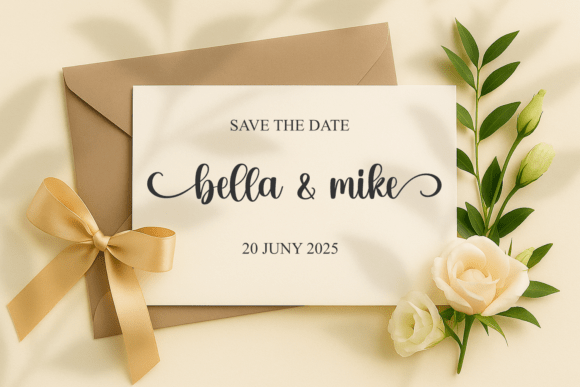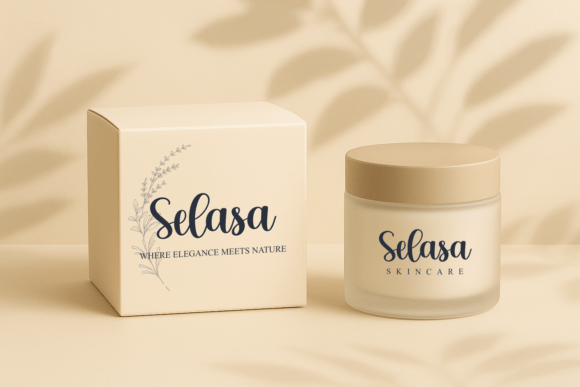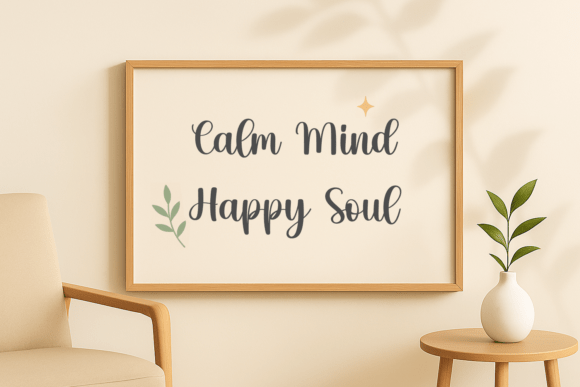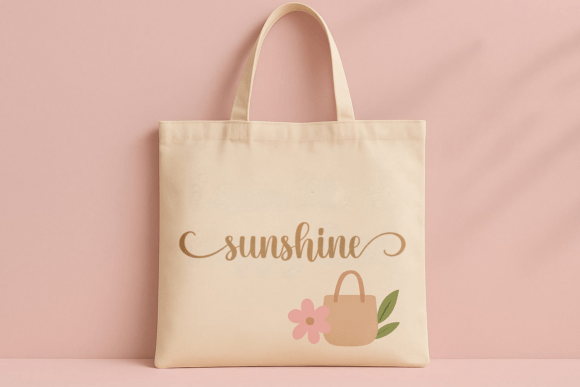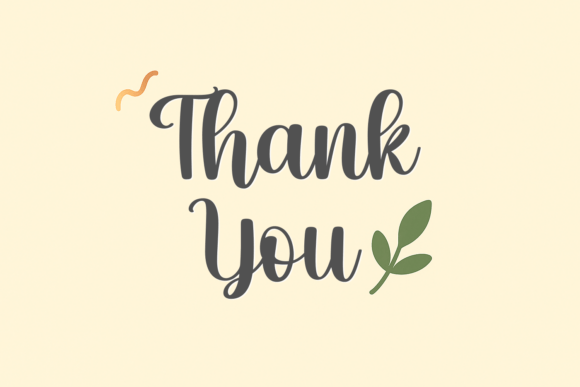
The Birth of a Masterpiece: Unveiling the Belliona Font
Have you ever been struck by the inspiration of a beautiful handwritten note or a stunning piece of calligraphy? The gentle dance of ink on paper, the fluidity of the strokes, and the emotional connection it evokes are all things that make design truly special. For designers, finding the perfect font to capture this essence can be a game-changer.
Enter the Belliona Font, a stylish script font that embodies artistic flair and contemporary elegance. With its fluid brush strokes, dynamic curves, and expressive letterforms, it’s the perfect tool to add a creative and sophisticated touch to your designs. Whether you’re crafting logos, invitations, packaging, or social media graphics, the Belliona Font delivers both visual impact and versatility.
Belliona Font Key Features
- Unique Characteristics: Belliona Font features a unique blend of modern and elegant designs, making it suitable for various applications, including headings, titles, and body text.
Belliona Font Review
I recently had the chance to work with the Belliona font, and I must say it’s an interesting choice. Let’s dive into what I think works well and what might not be so great. ✨
- Unique Character: Belliona font has a distinct character that can help set your design apart from more common fonts.
- Highly Legible: It’s easy to read, even at smaller font sizes, making it suitable for body text or headings.
- Good for Emotional Design: The font’s flair and curves can add an emotional touch to your design, perfect for branding or advertising.
However, there are a few limitations to consider. ⚠️
- Not Suitable for Formal Documents: The font’s style might not be suitable for formal documents, like reports or academic papers.
- Can be Overpowering: Belliona font can be quite bold, so use it sparingly to avoid overwhelming your design.
- Not Ideal for Small Text: While highly legible, the font’s flair can make small text appear cluttered or difficult to read.
Overall, I think Belliona font is a great choice for creative projects or brands looking to make a statement. Just be mindful of its limitations, and you’ll be able to use it effectively in your designs.
Belliona Font is ideal for use in creative projects, such as:
- Designing invitations and event materials.
- Creating branding materials, such as logos and business cards.
- Designing digital products, such as ebooks and guides.
For optimal results, use Belliona Font in conjunction with high-quality images and graphics to create visually appealing designs.
Alternatives to Belliona Font
The Belliona Font is a popular font known for its elegant and modern design. However, designers may be looking for alternative fonts that offer similar characteristics or a unique twist. Here are a few options to consider:
Montserrat is a sans-serif font that shares some similarities with Belliona Font’s modern and clean design. It is a great option for designers who want a font that is highly legible and works well in a variety of contexts. Use Montserrat for headings, titles, and body text where a modern and sleek feel is desired. Montserrat is more geometric and clean compared to Belliona Font’s elegant and luxurious feel.
2. Playfair Display
Playfair Display is a luxurious and elegant font that is reminiscent of Belliona Font’s high-end feel. It features intricate details and flourishes that make it perfect for use in high-end branding, invitations, and other materials where a touch of sophistication is desired. Use Playfair Display for special occasions or when a sense of luxury is required. Playfair Display has a more ornate and vintage feel compared to Belliona Font’s sleek and modern design.
Lato is a modern sans-serif font that is highly legible and works well in a variety of contexts. It features a clean and minimalist design that makes it perfect for use in body text, headings, and titles. Use Lato for designs where a clean and modern feel is desired. Lato is more minimalist and clean compared to Belliona Font’s elegant and luxurious feel.